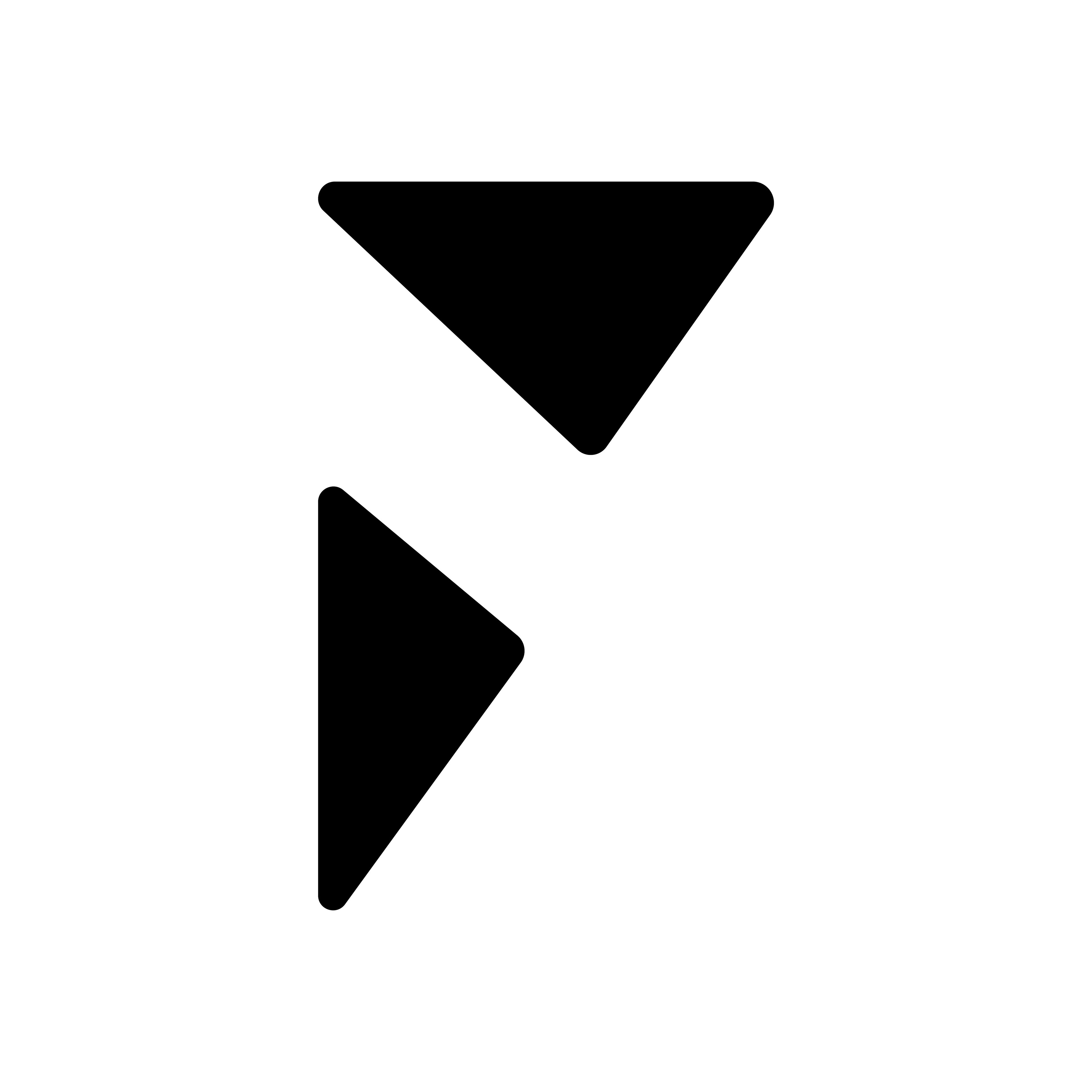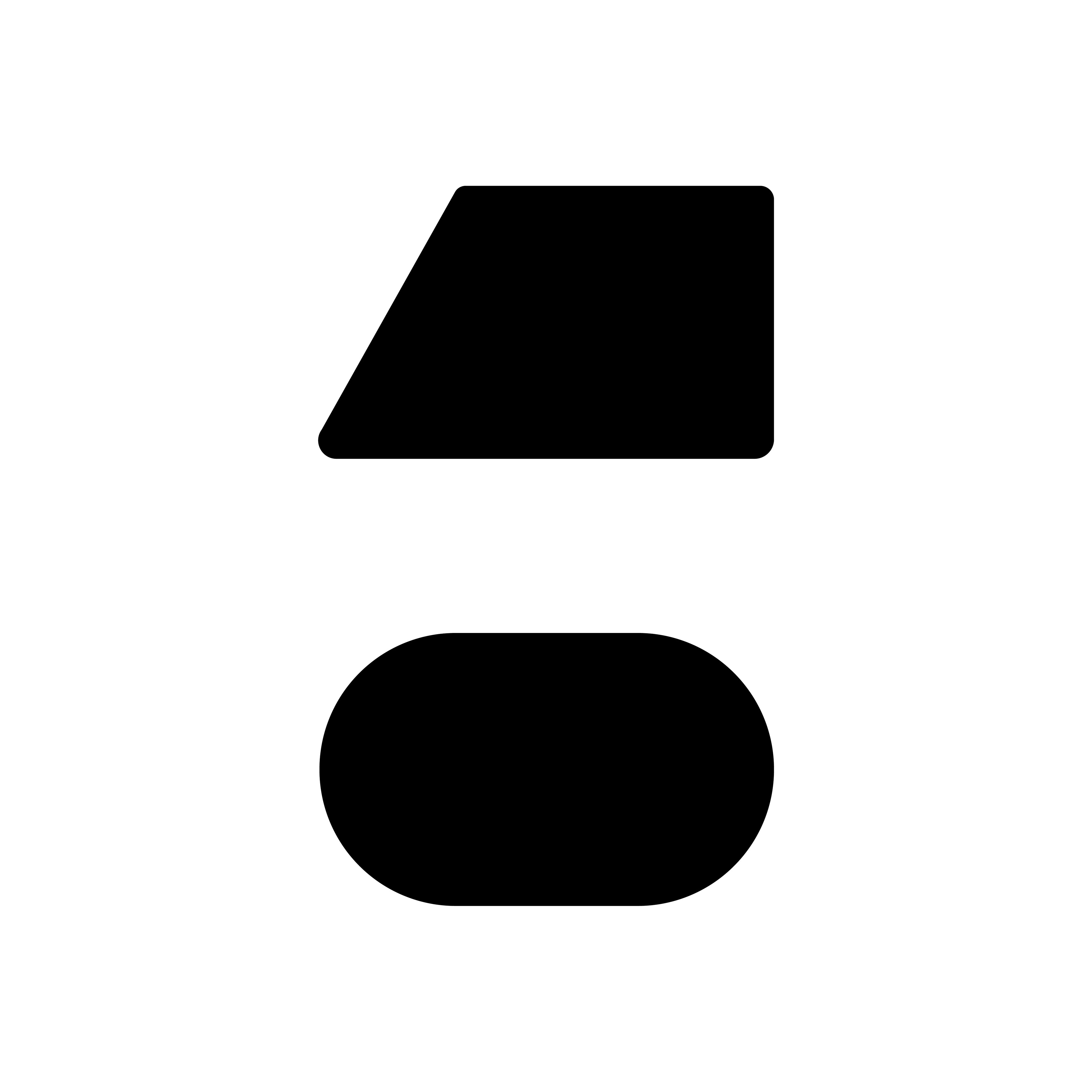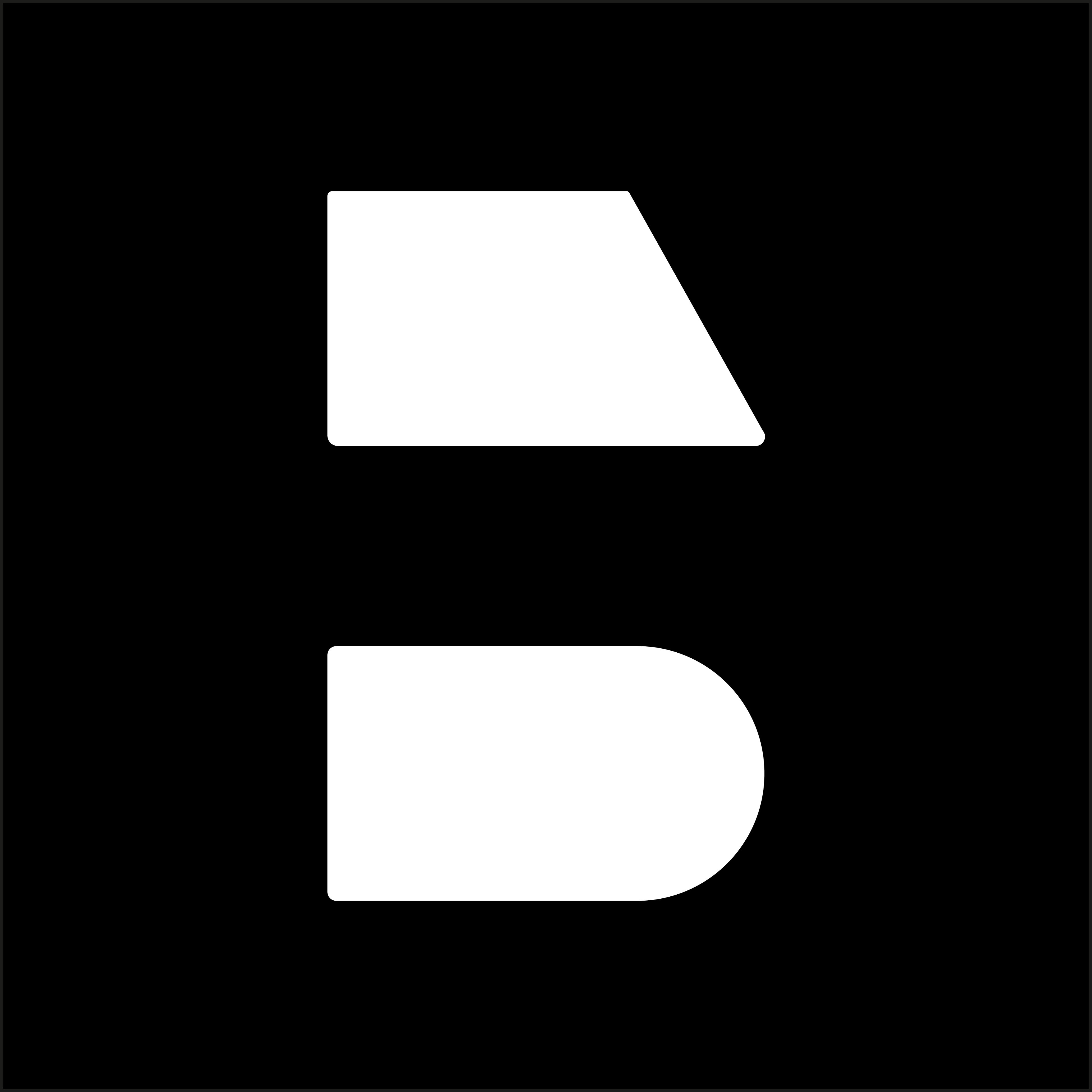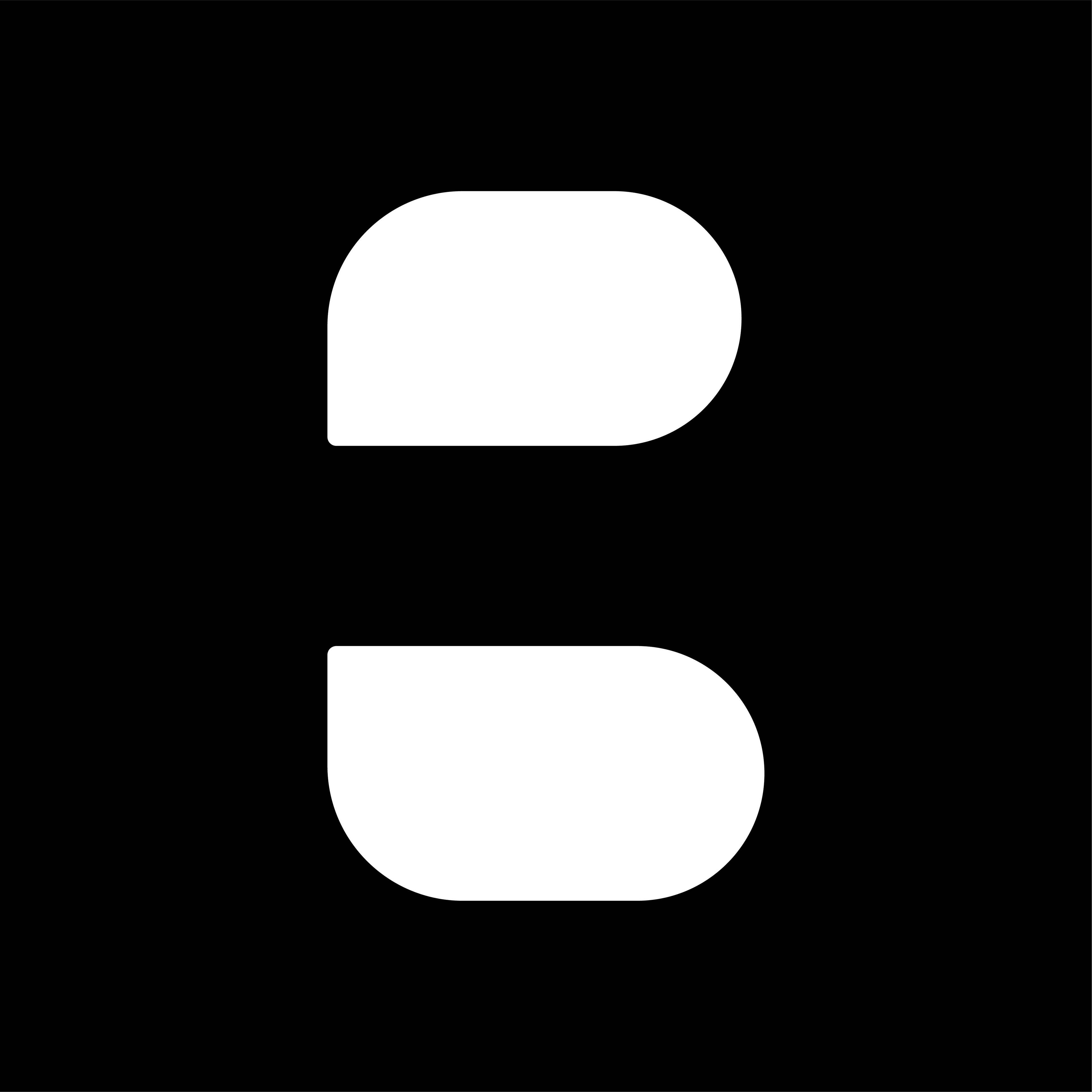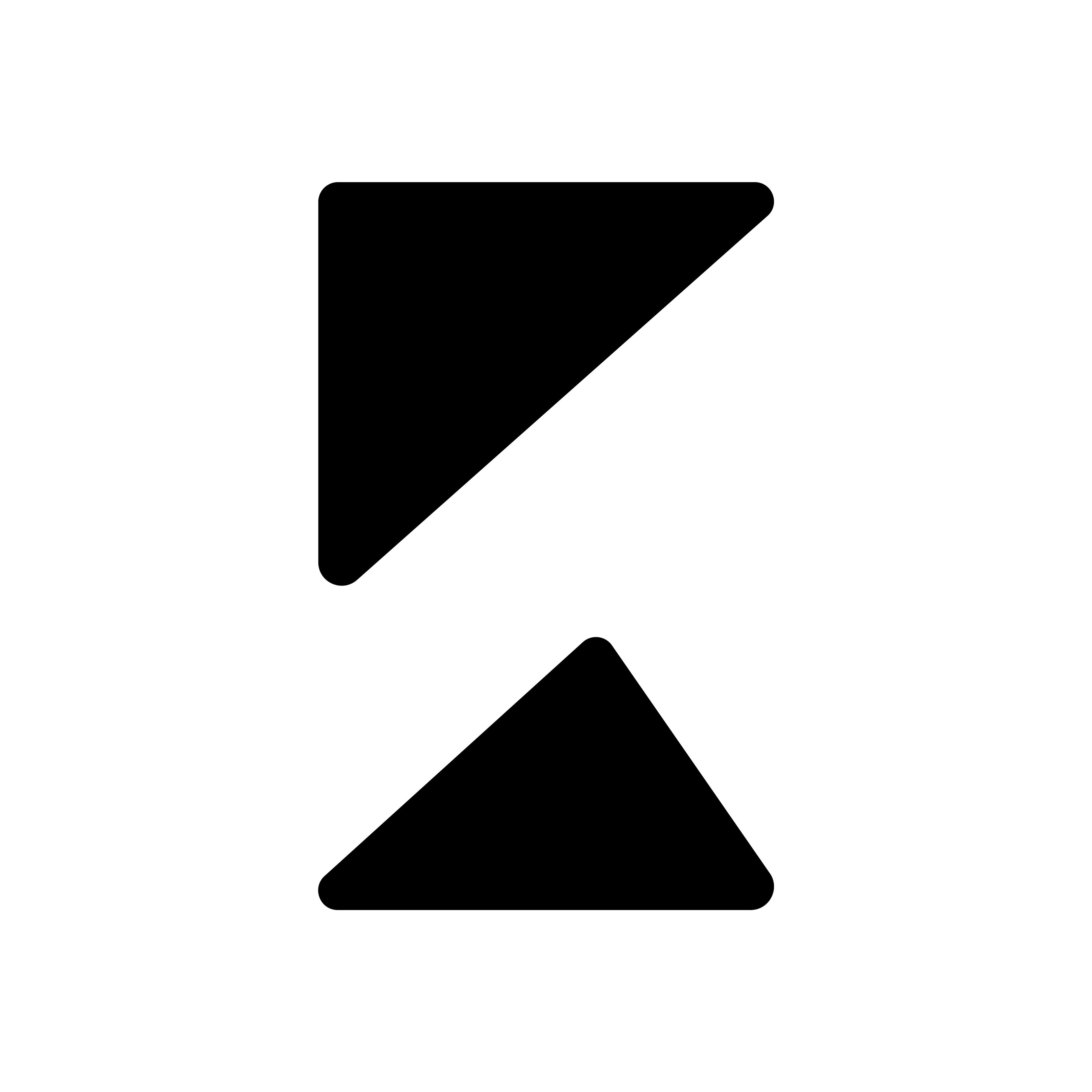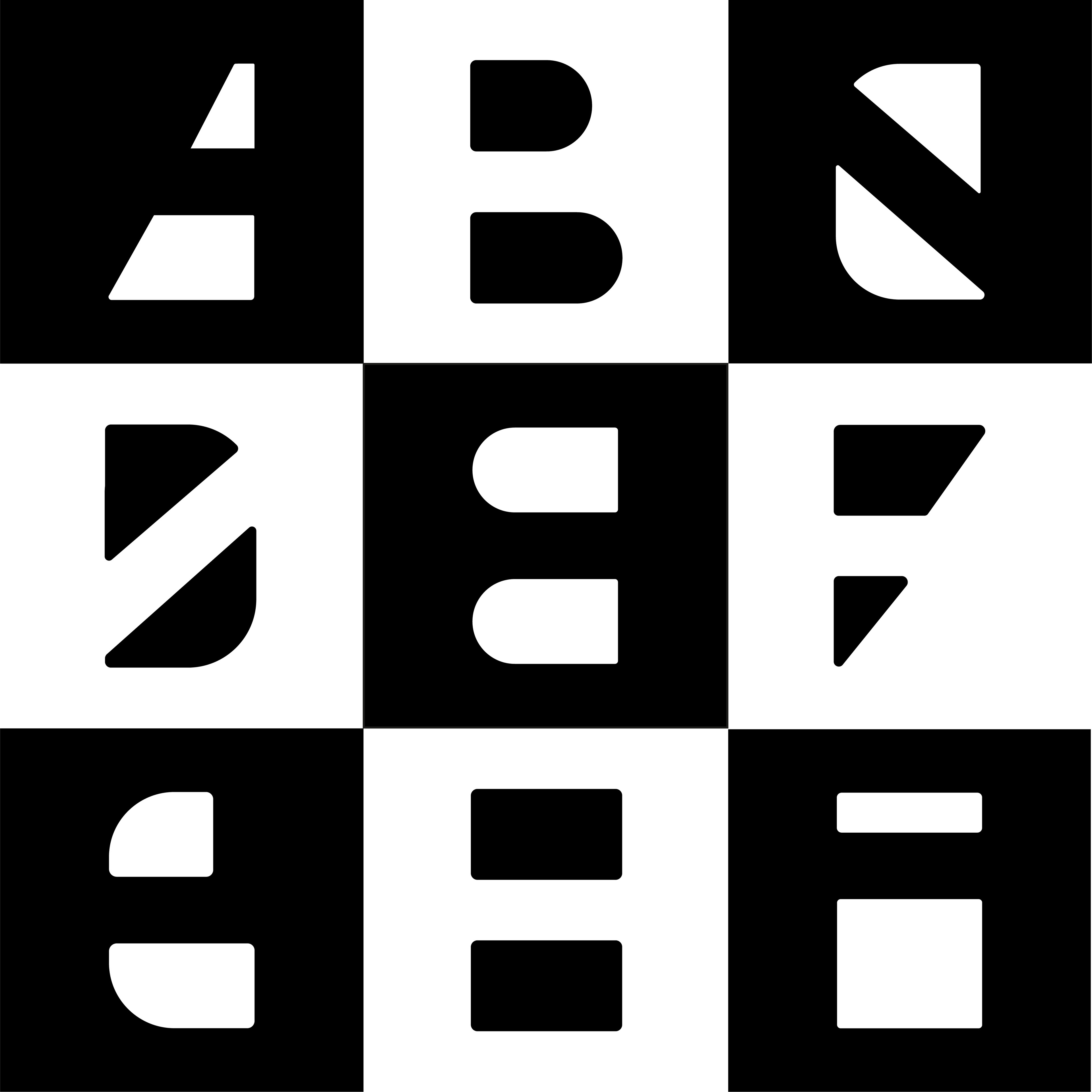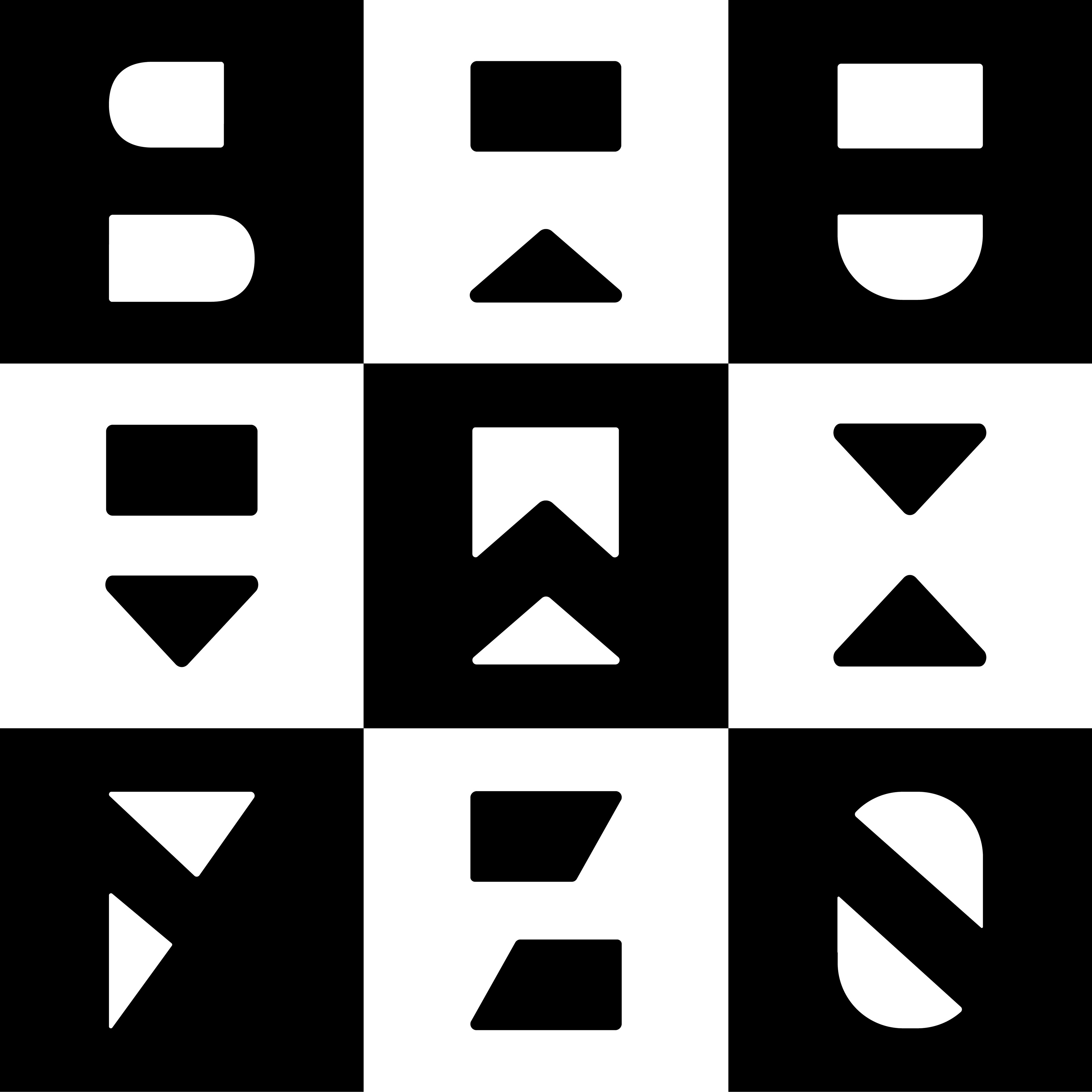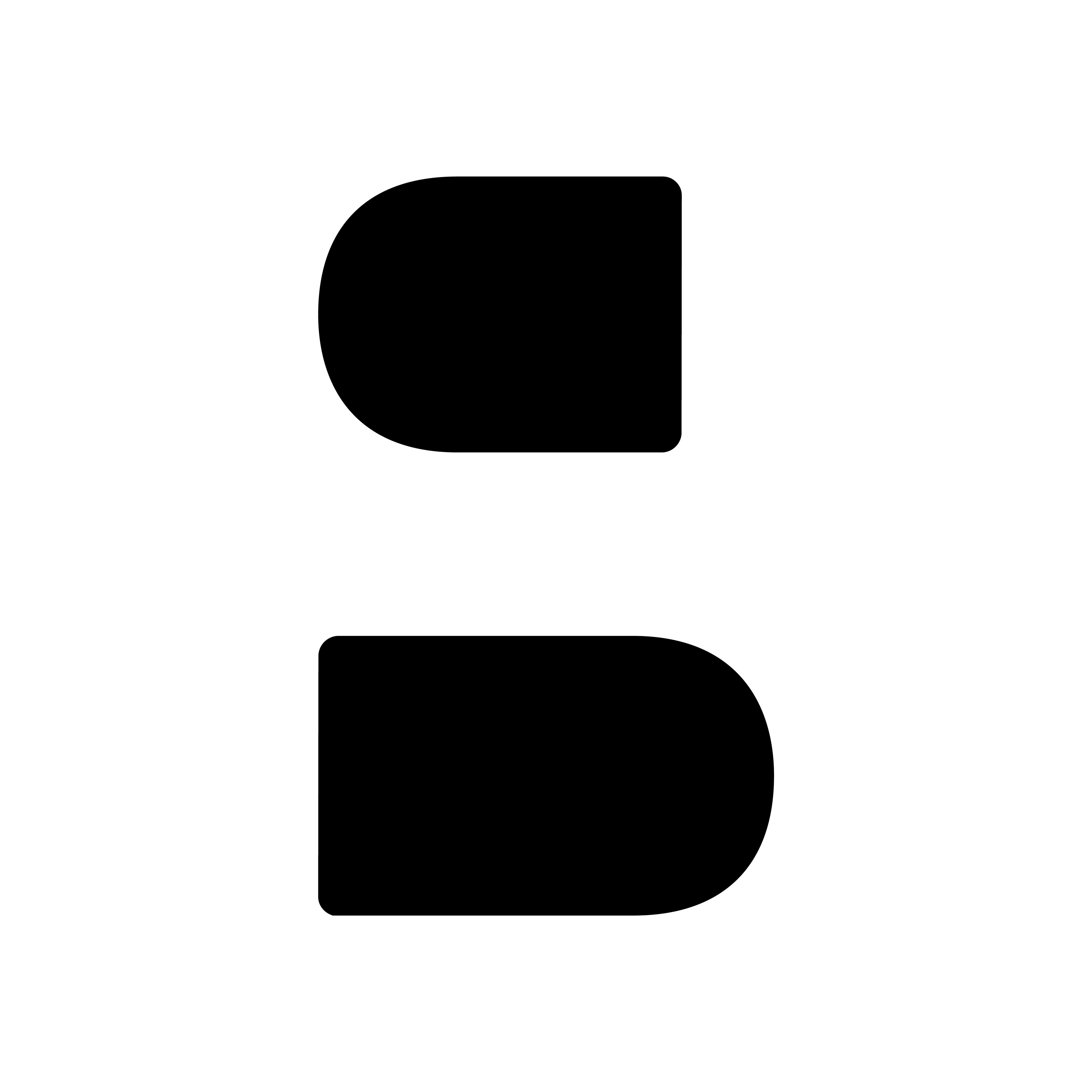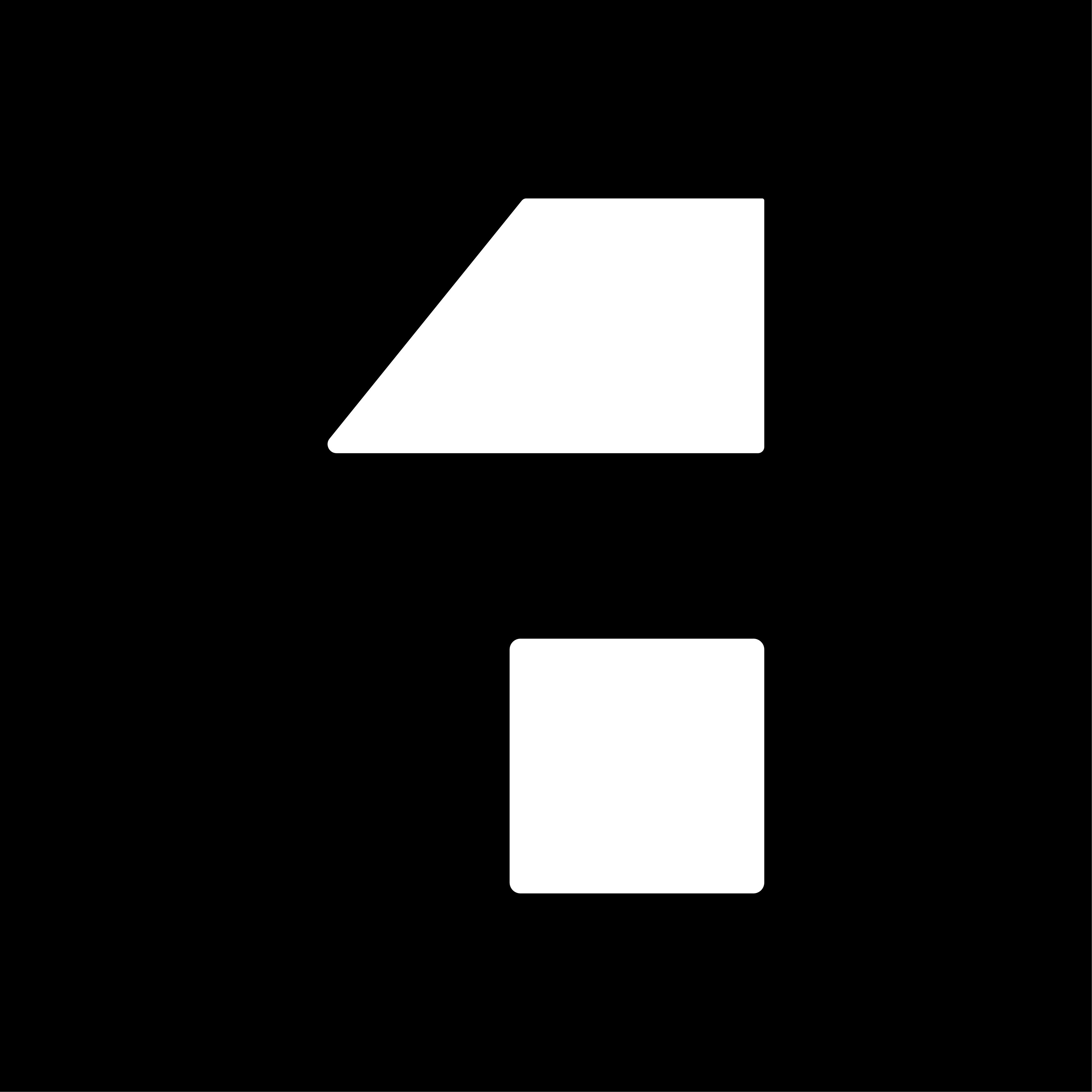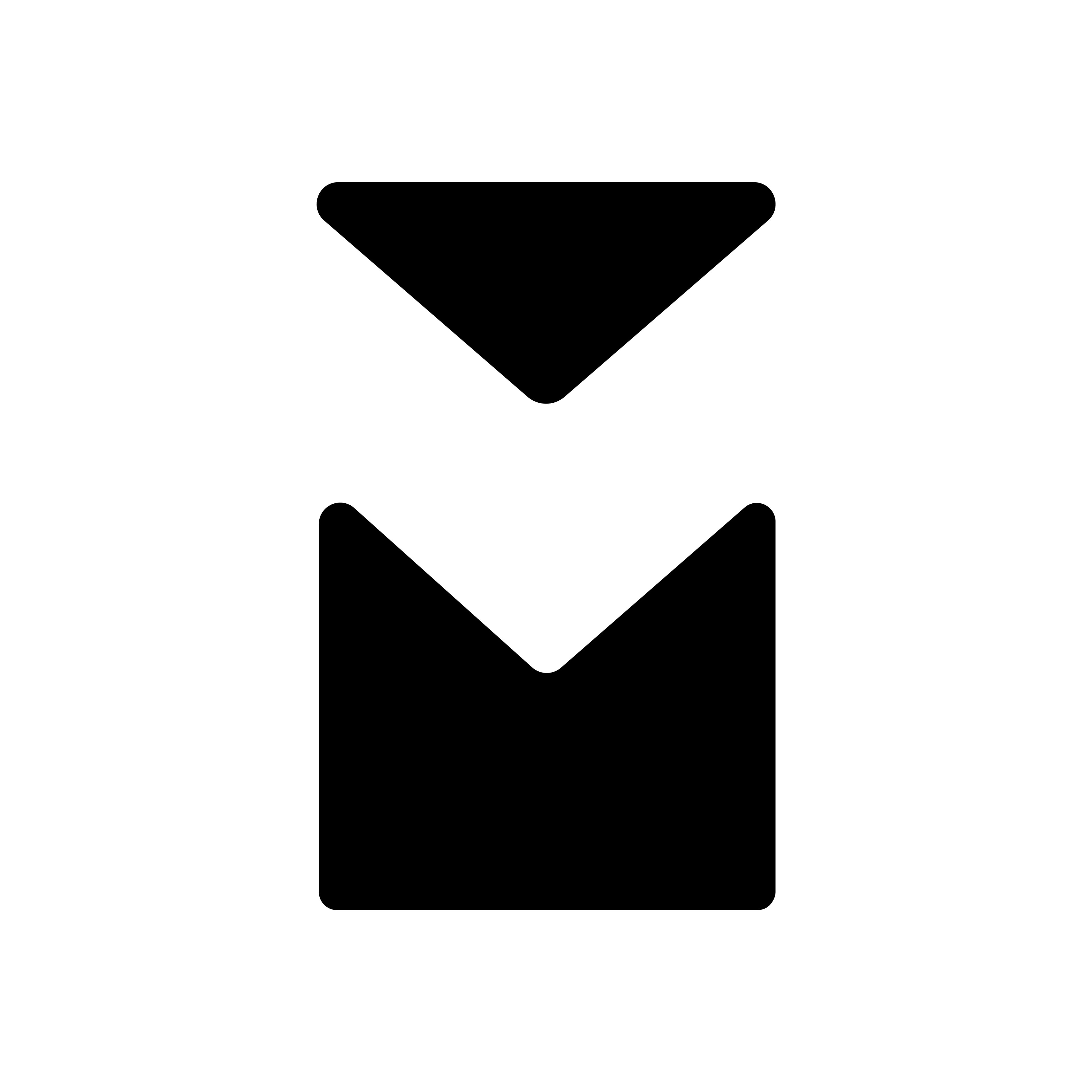
36 days of type
Scope: funky typeface
So far, it's needless to say that geometry, form and "gestalt but soft" (as one once pointed out) are my things. In 2023 I decided to join 36 Days Of Type to challenge myself in creating funky alphabet which is basically extension of Funky Studio logotype.
At the beginning I had 5 out of 36 letters done and dusted thanks to the logotype. For the rest of them basic assumptions were:
First and foremost: consistent system, balancing from the letters background to the letters in their classic form.
Hence: letter readability balanced in its abstract form, as a fundamental matter in case of a typeface.
Last but not least: overall funkiness, because this is what Funky Studio is all about.